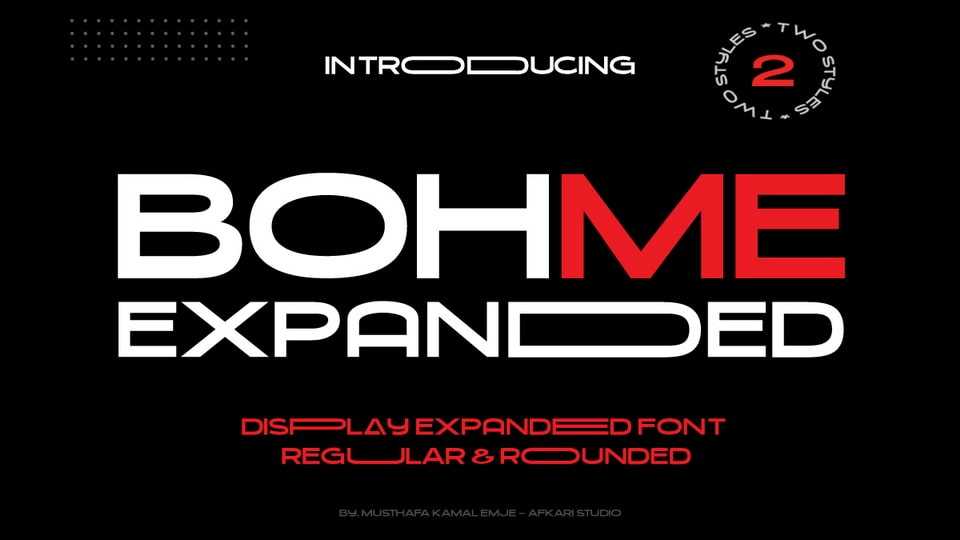
Download Bohme Expanded font, a dynamic and modern display sans serif typeface that takes typography to new heights. This font, characterized by its bold and expansive design, seamlessly combines contemporary aesthetics with a touch of sophistication.